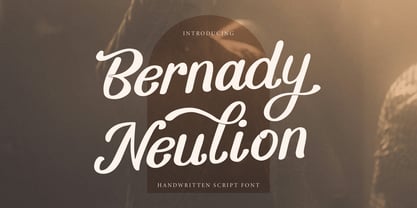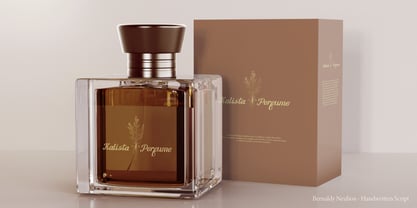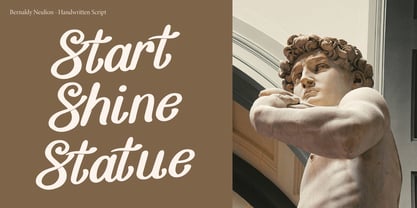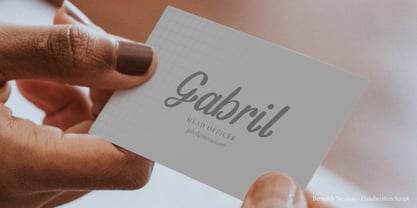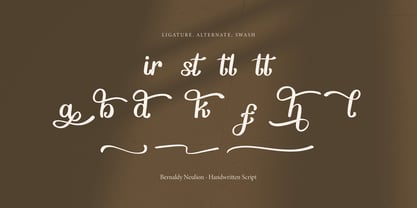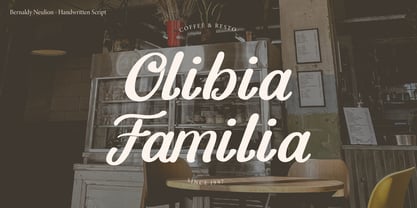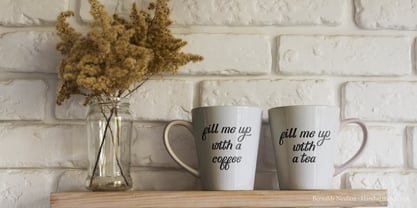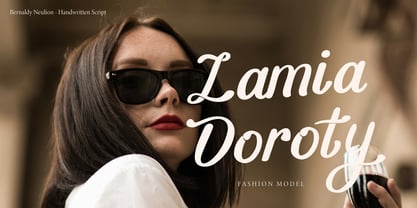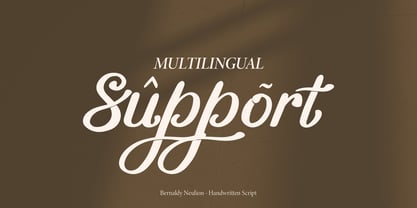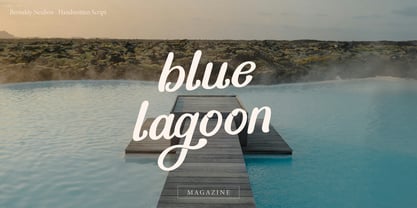
Bernady Neulion
by Tini Fitriani
The Bernady Neulion Font Family was designed by and published by Tini Fitriani. Bernady Neulion contains 2 styles and family package options.
Bernady Neulion | Handwritten Script Font,, from Gracetypestudio, suitable for any projects such as: logos, branding projects, homeware designs, product packaging, mugs, quotes, posters, shopping bags, t-shirts, book covers, name card, invitation cards, greeting cards, label, photography, watermark, special events, and all your other lovely projects that need a beautiful script taste.